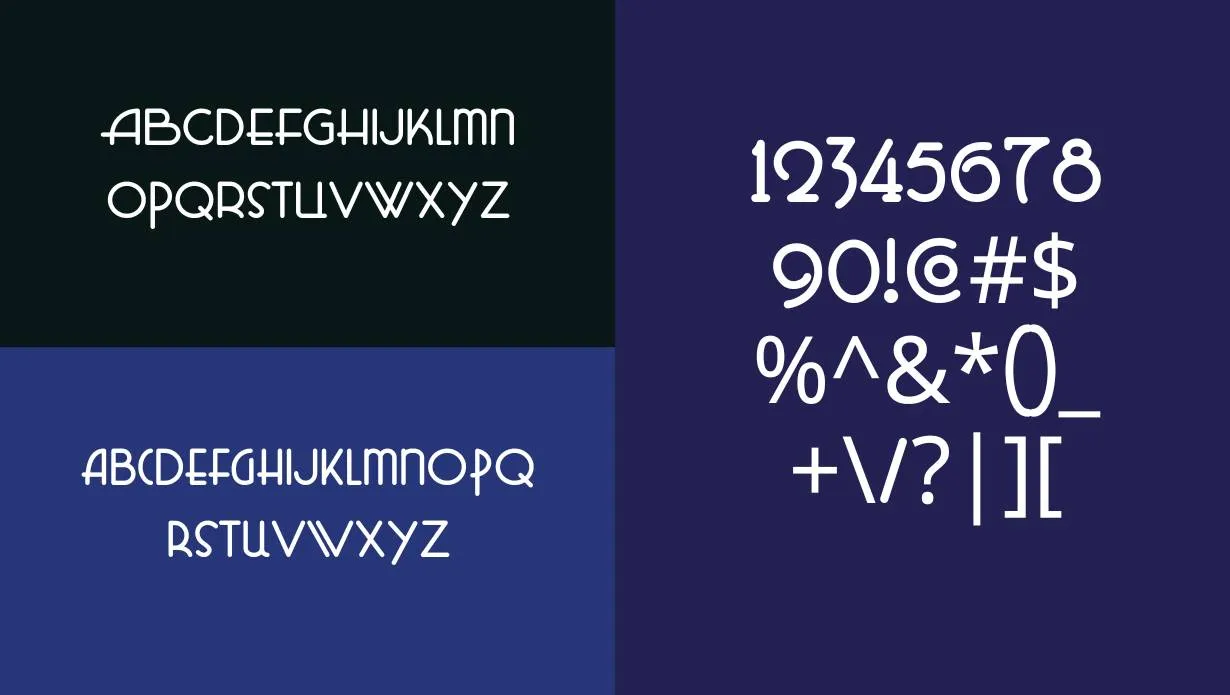
Cleveland font is like a sturdy handshake from your hometown—reliable, solid, and rooted in tradition. When you use it, your words become a familiar landmark, exuding a sense of stability and trust.
It’s an ideal choice for designs that need a touch of hometown charm. Cleveland’s letters stand like landmarks, each one contributing to the overall sense of familiarity and reliability in your message.